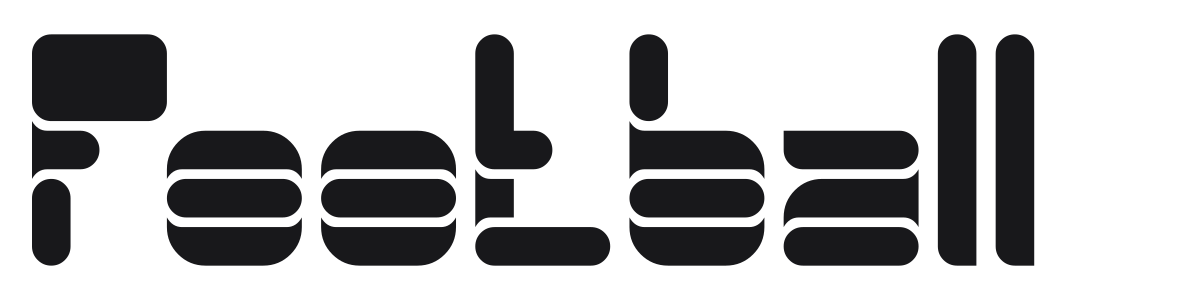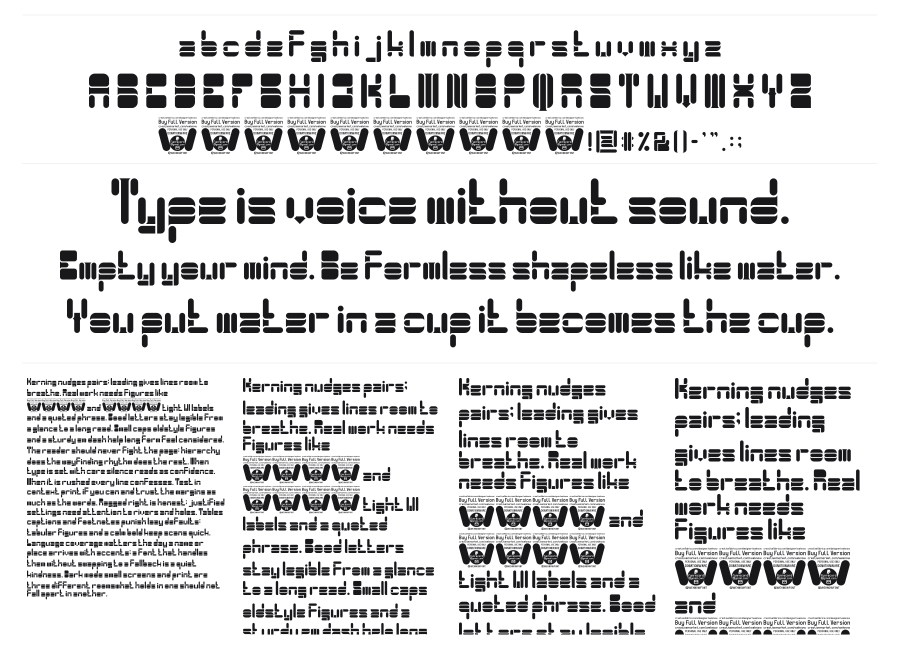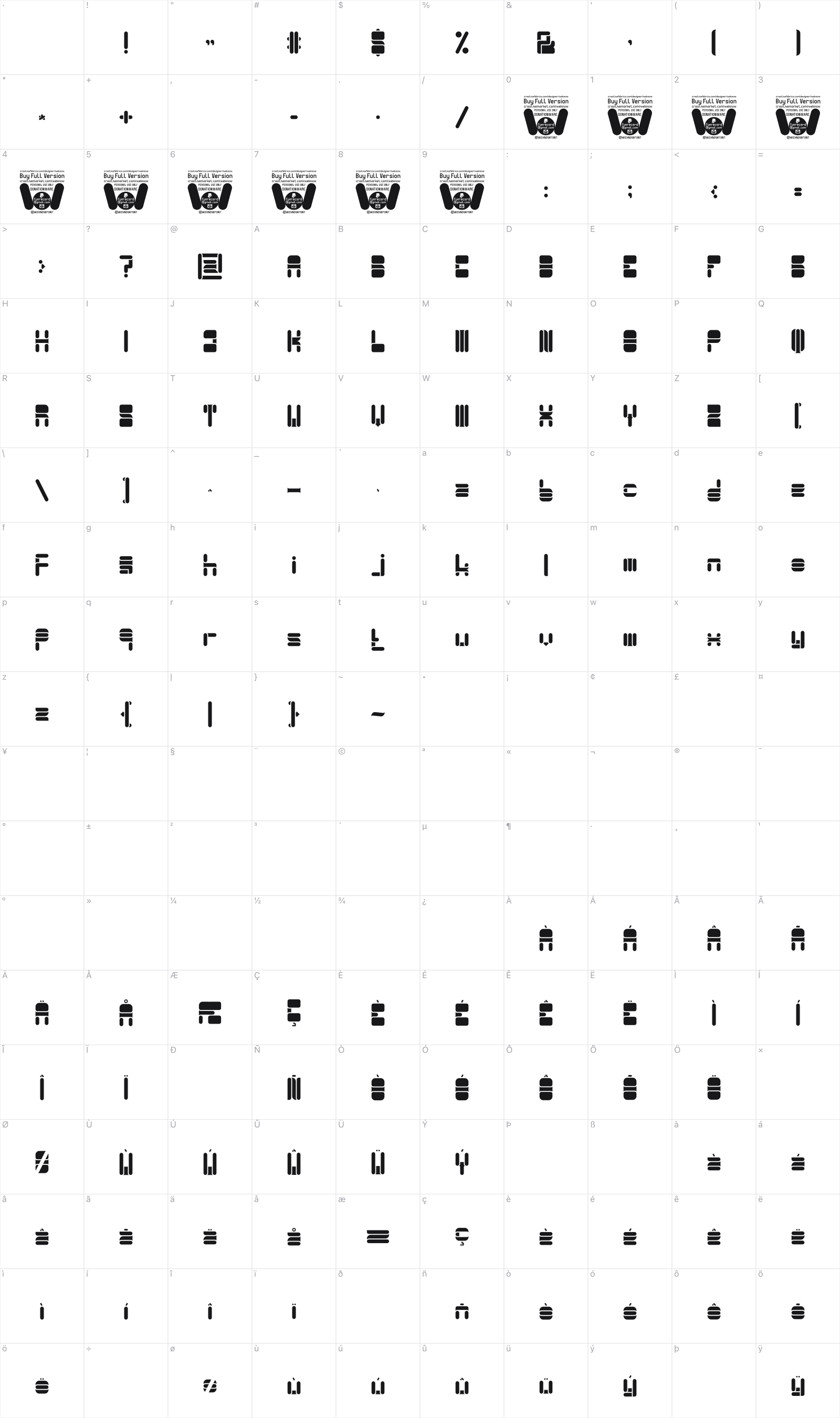
Football
Football is a heavy modular display font built from rounded rectangular segments that recall scoreboard displays and sports jersey lettering. Every stroke terminates in a thick rounded cap, creating a dense, toy-like texture across the alphabet. It reads as playful and energetic at large sizes, suited to sports branding, event posters, and gaming graphics.